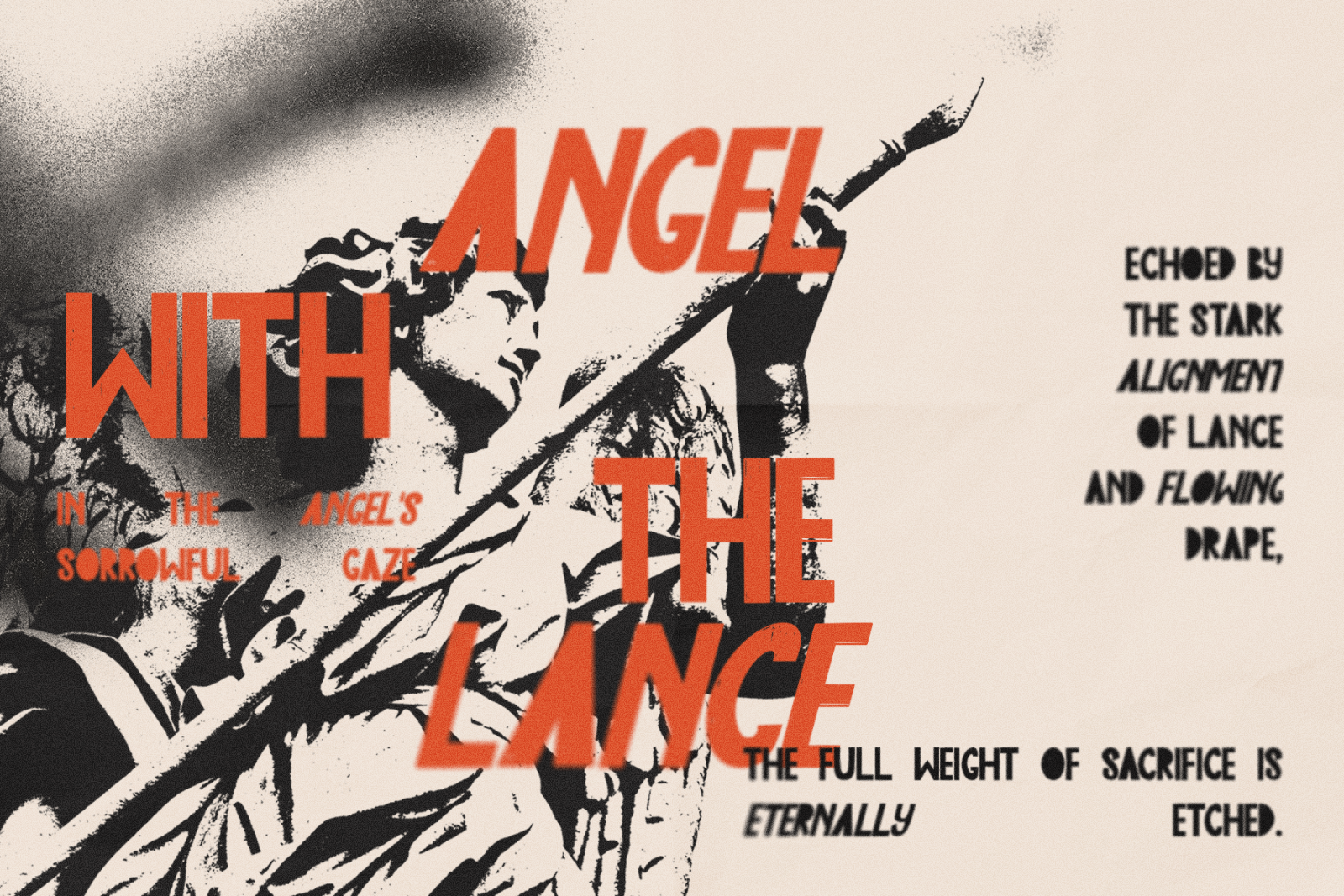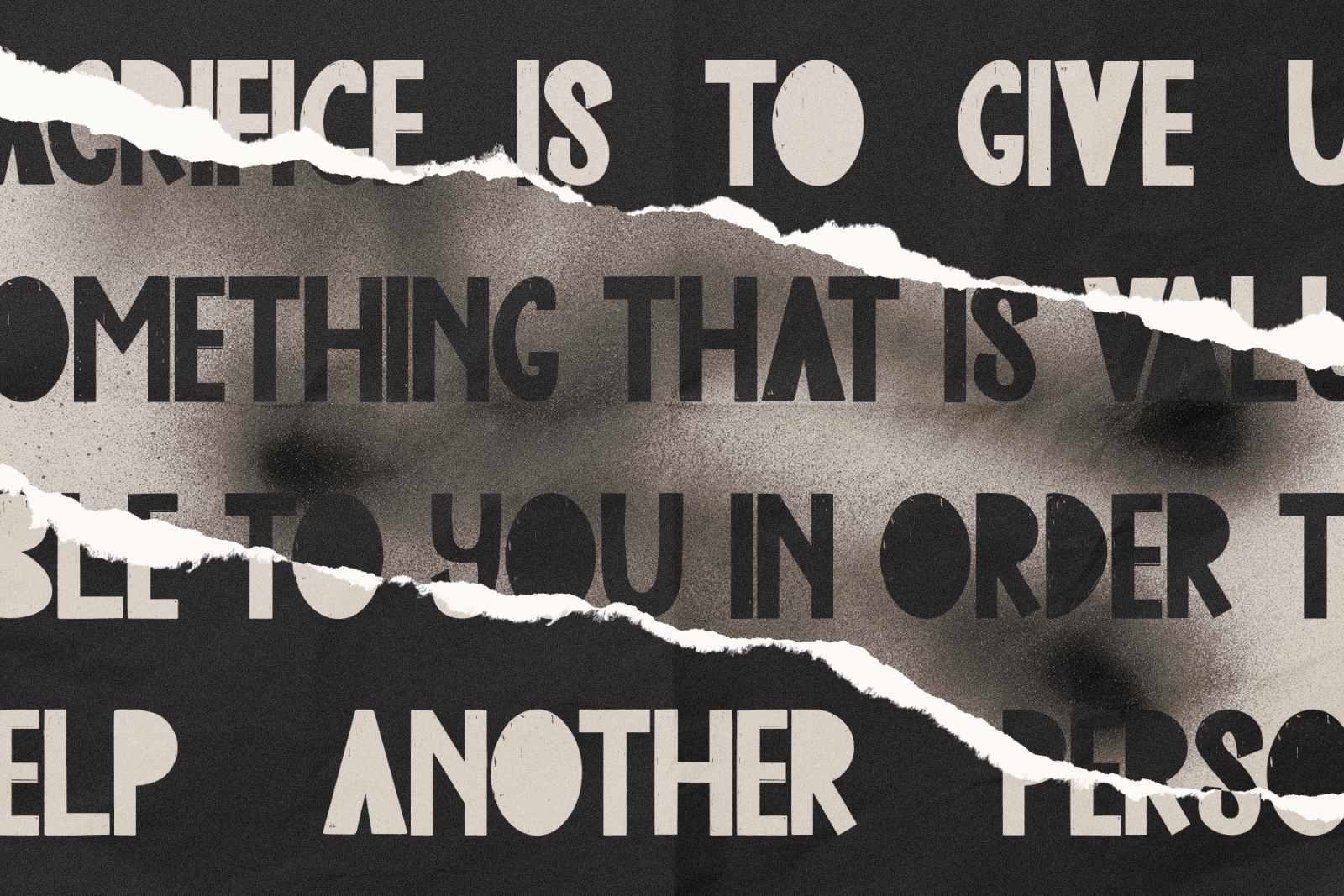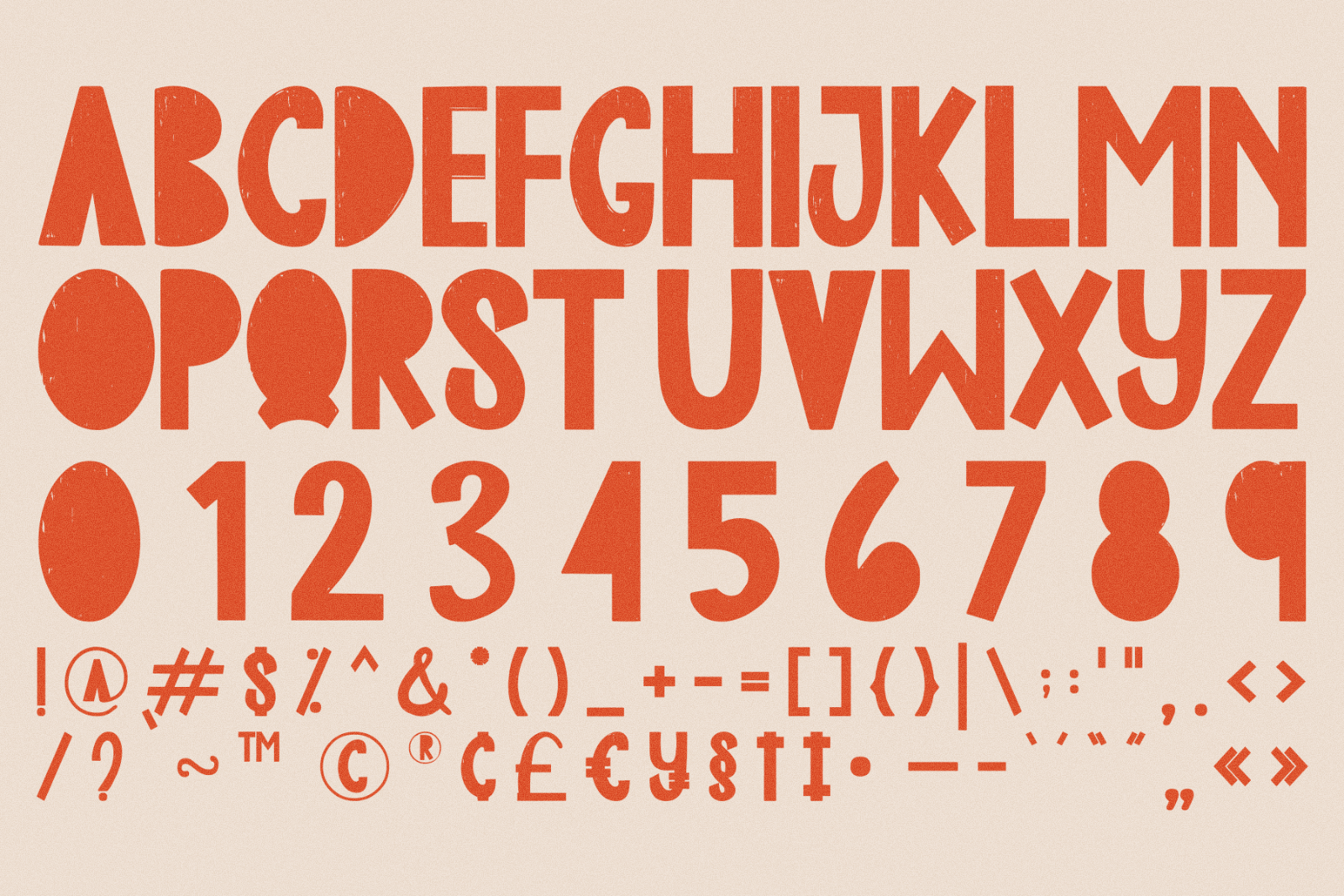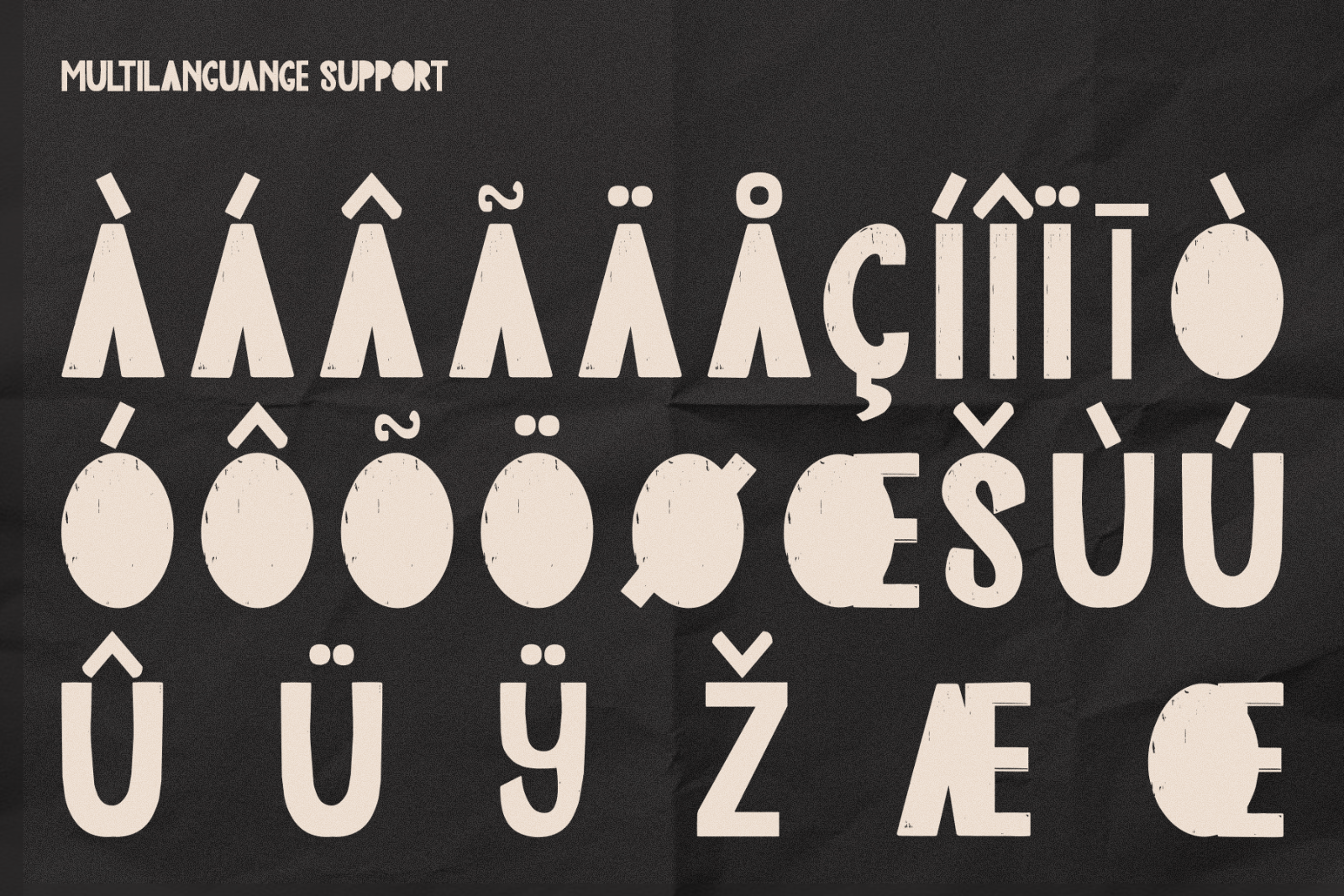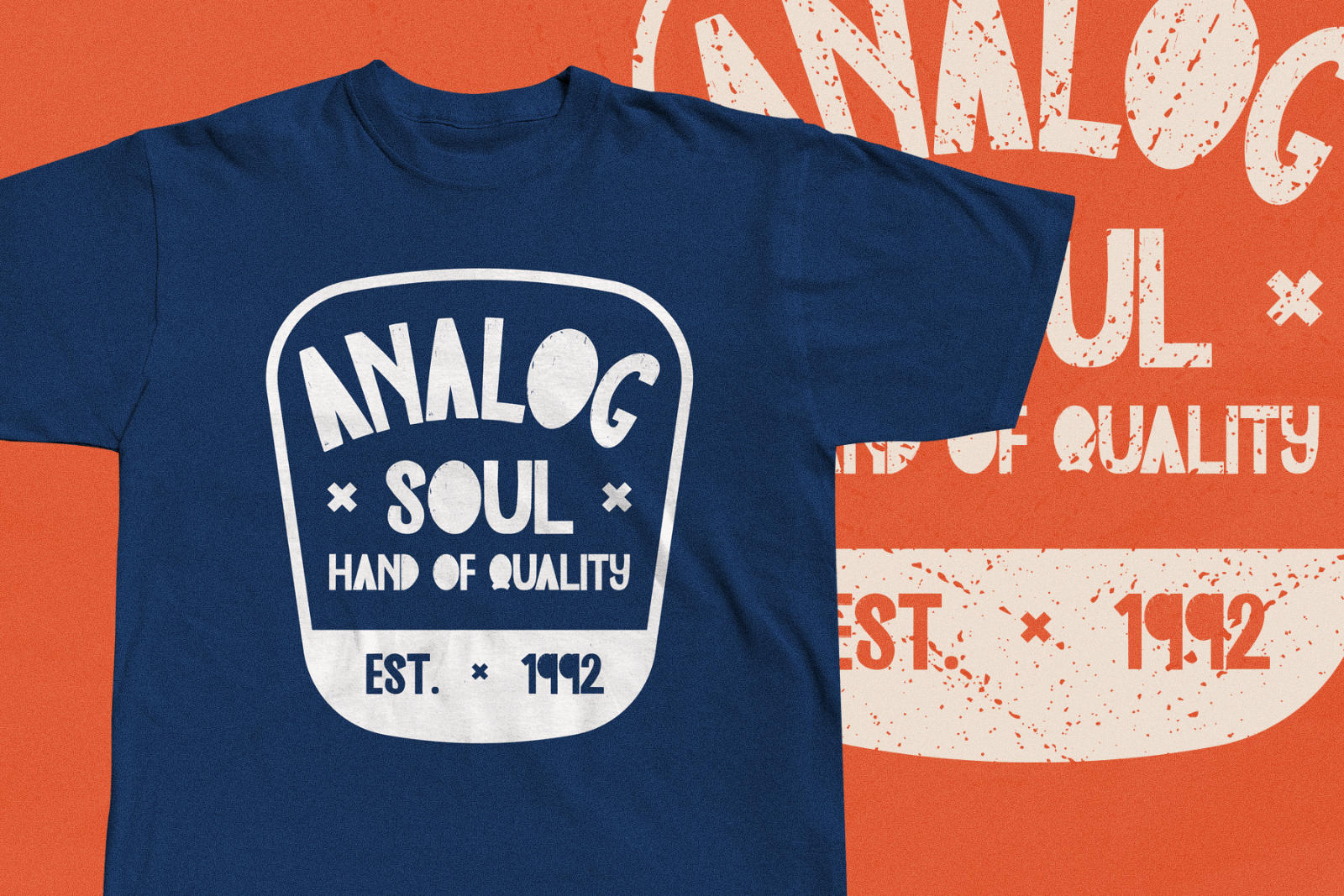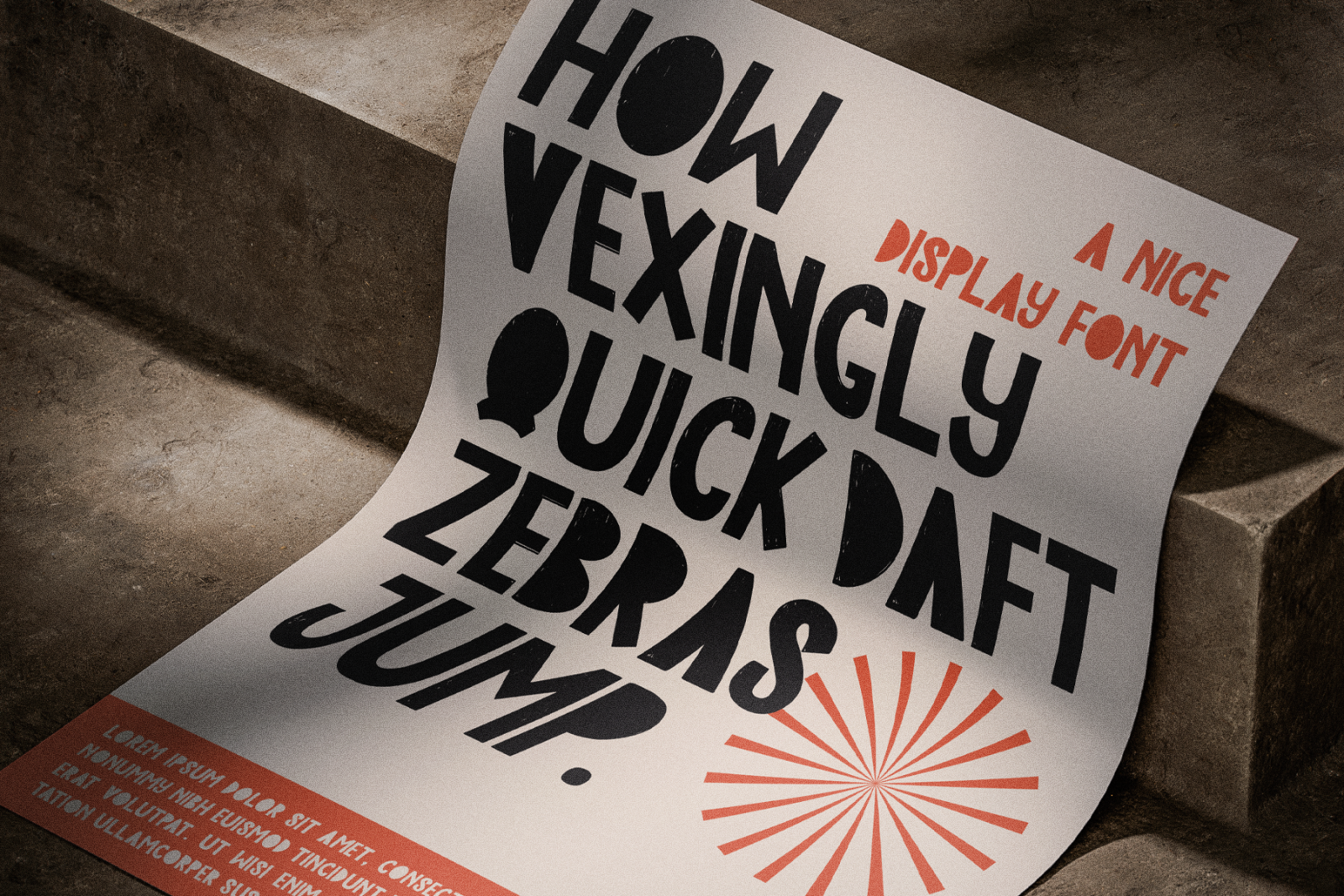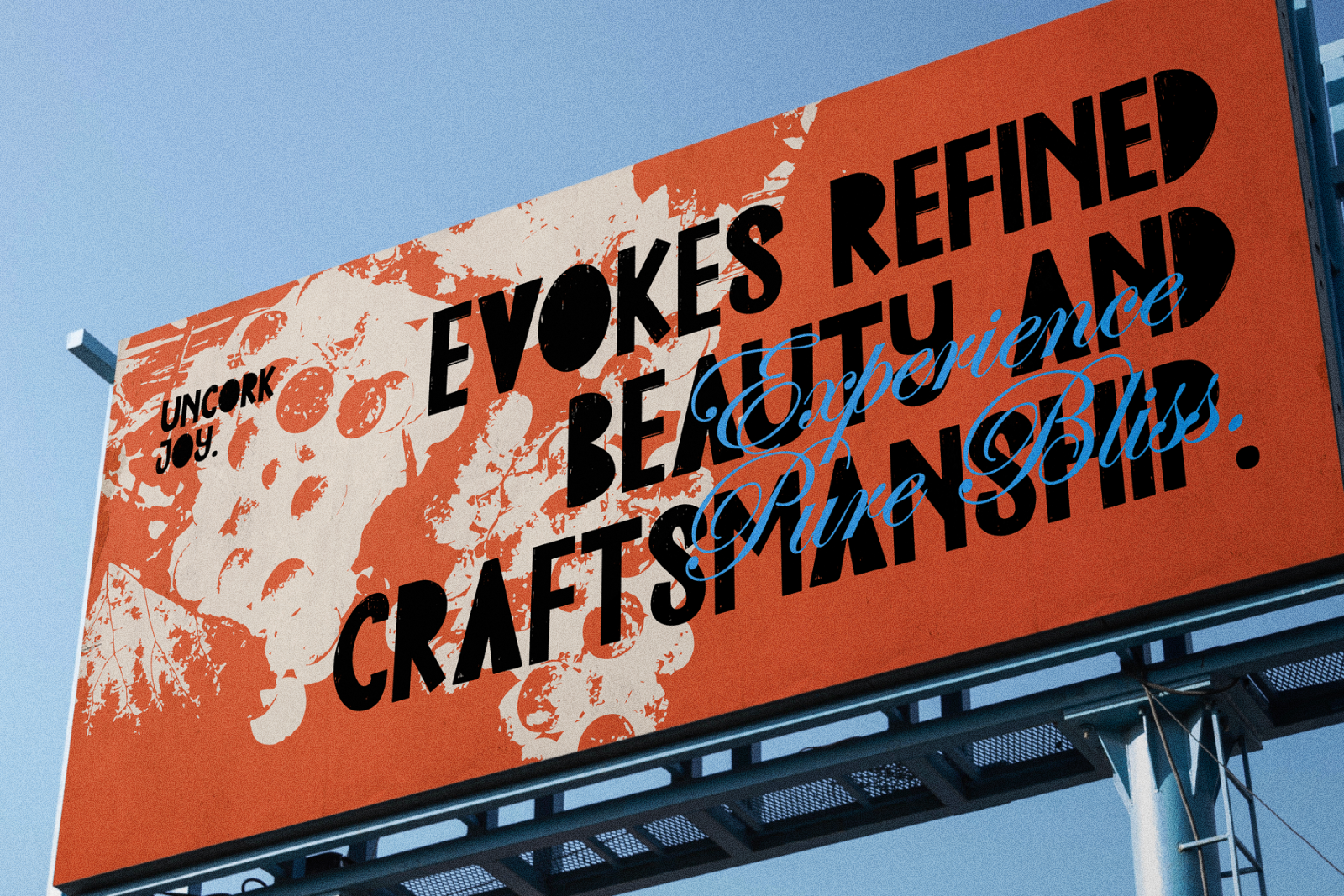
Edge Blocks is a bold and gritty textured display font that fuses geometric rigidity with raw, tactile energy. Inspired by retro print techniques and distressed poster art, this font carries an authentic handmade charm that brings designs to life. With strong block letterforms and built-in grainy texture, Edge Blocks is perfect for bold headlines, impactful branding, music covers, political posters, retro themes, or anything that needs a rebellious and creative spark. Make your message impossible to ignore with its expressive and rugged personality.